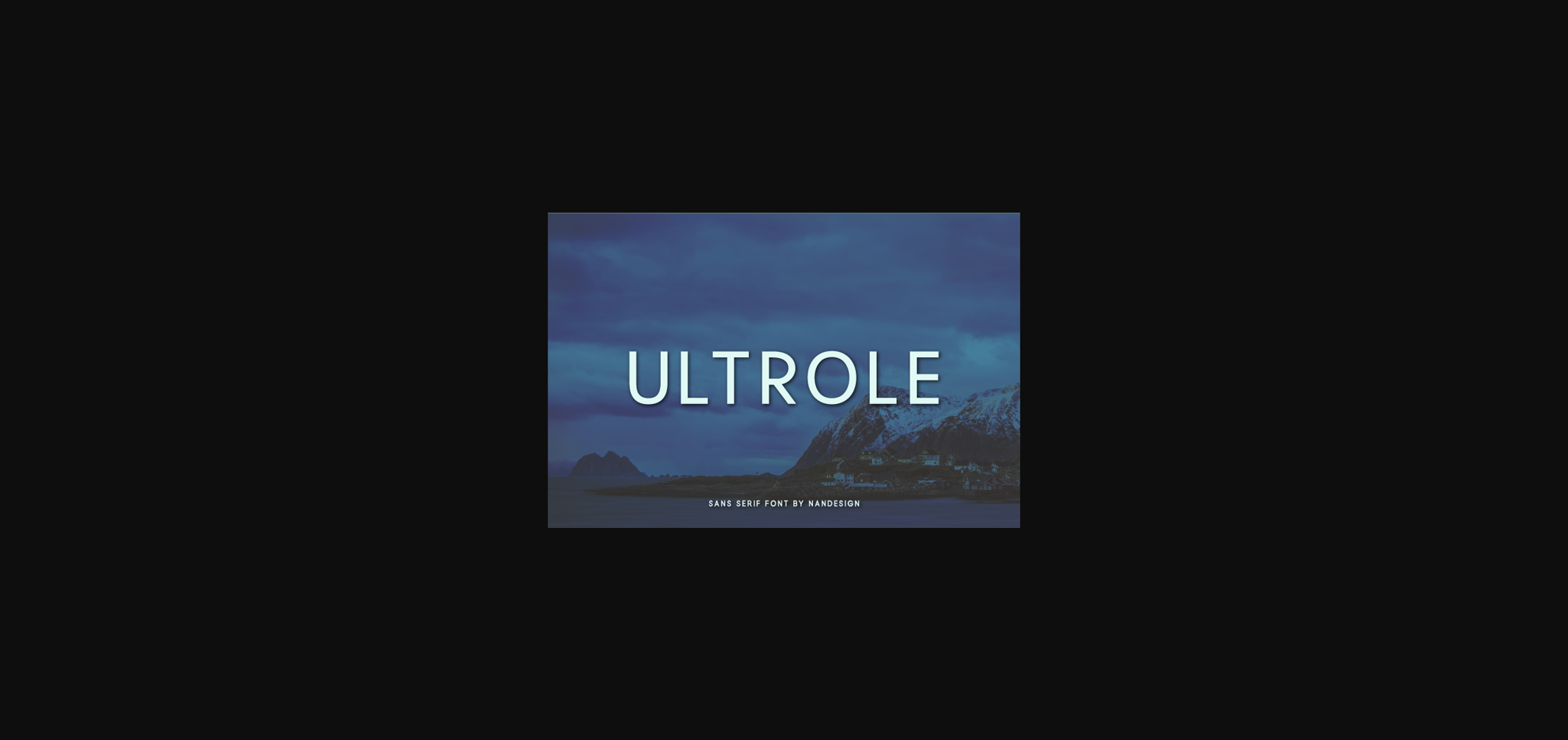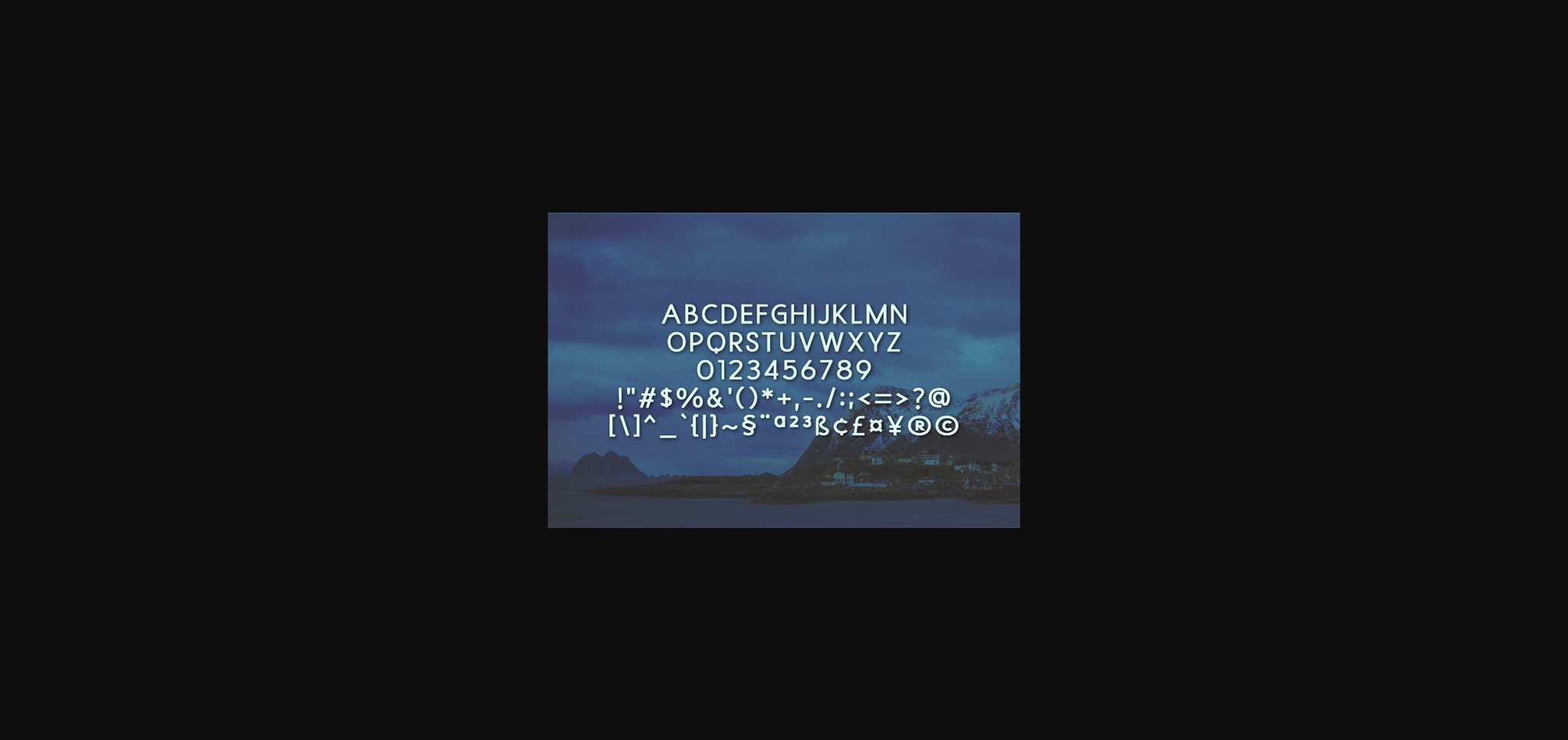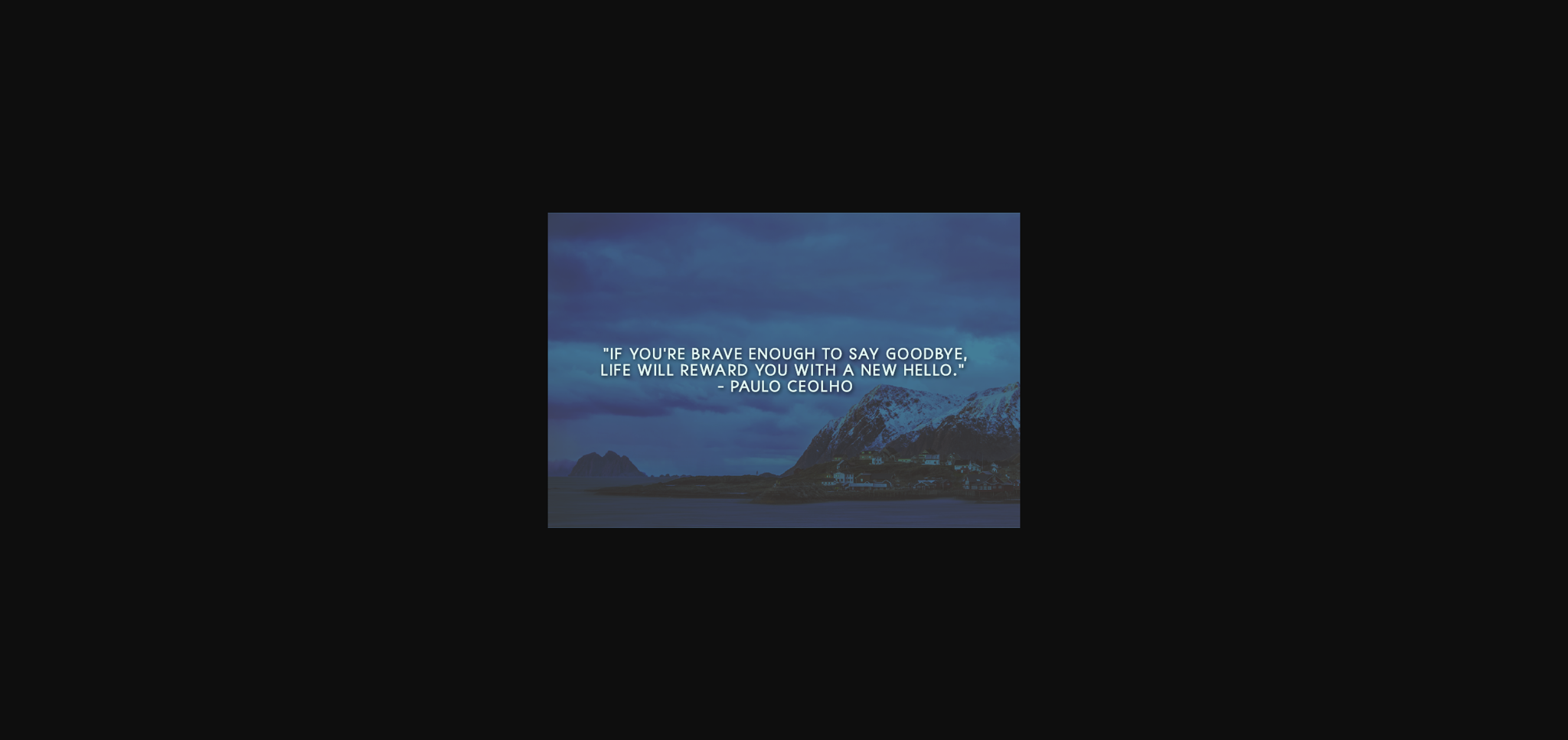
Ultrole is a simple sans serif font, designed to complement every project you’re currently creating. It has a clean, neat and fresh vibe and it will be a hit for any design that you want to add it to.